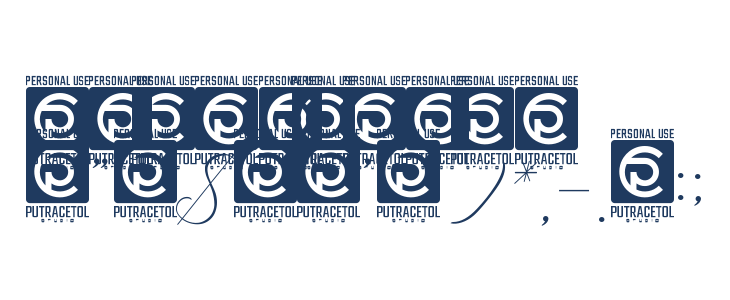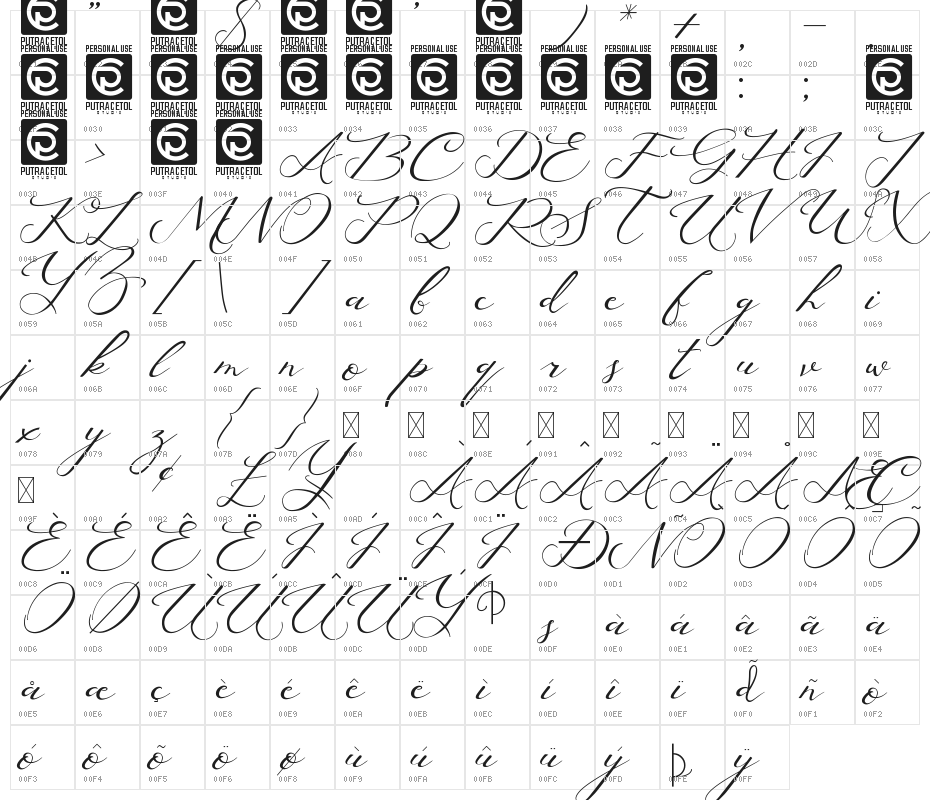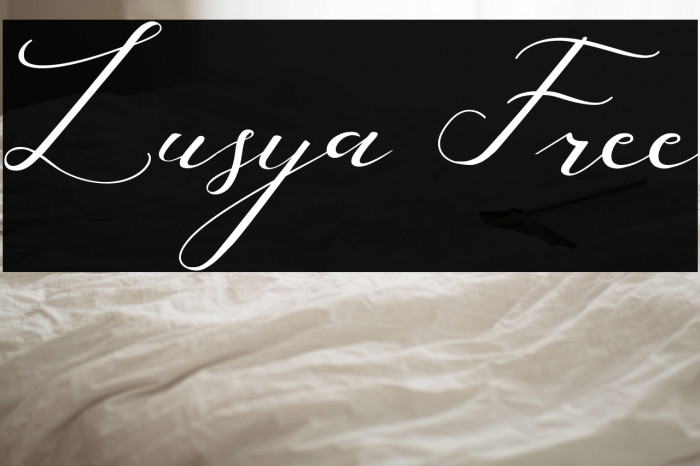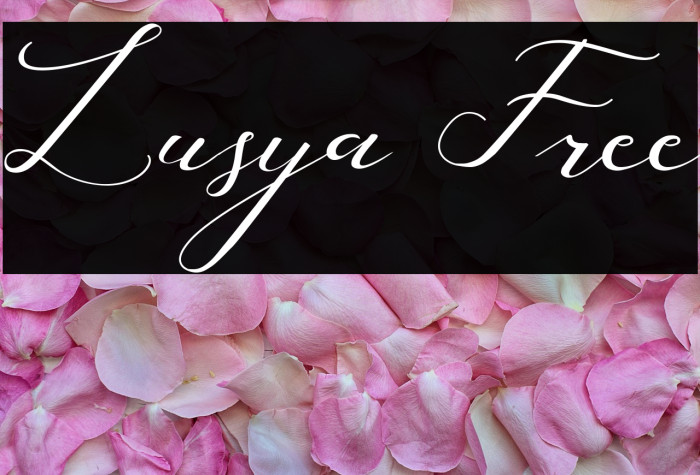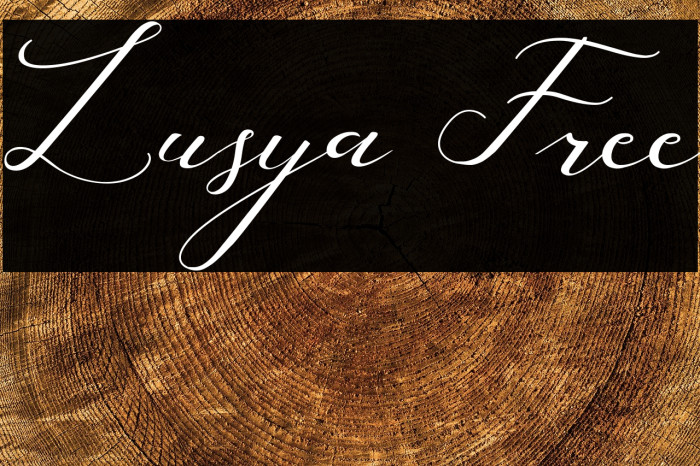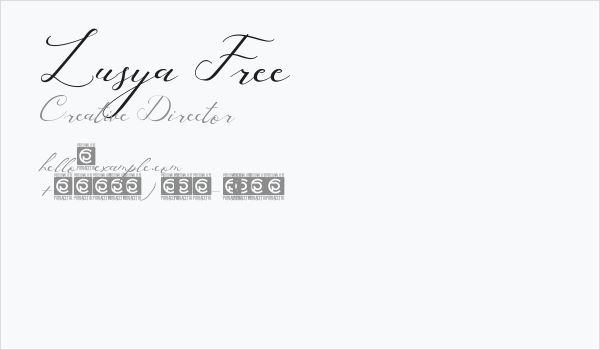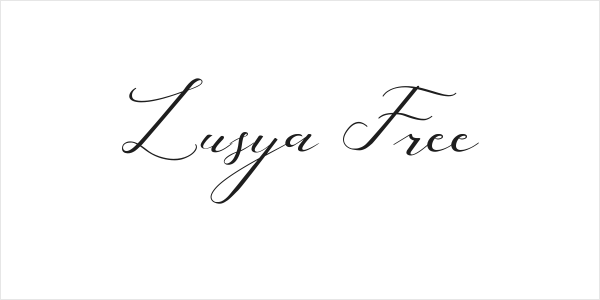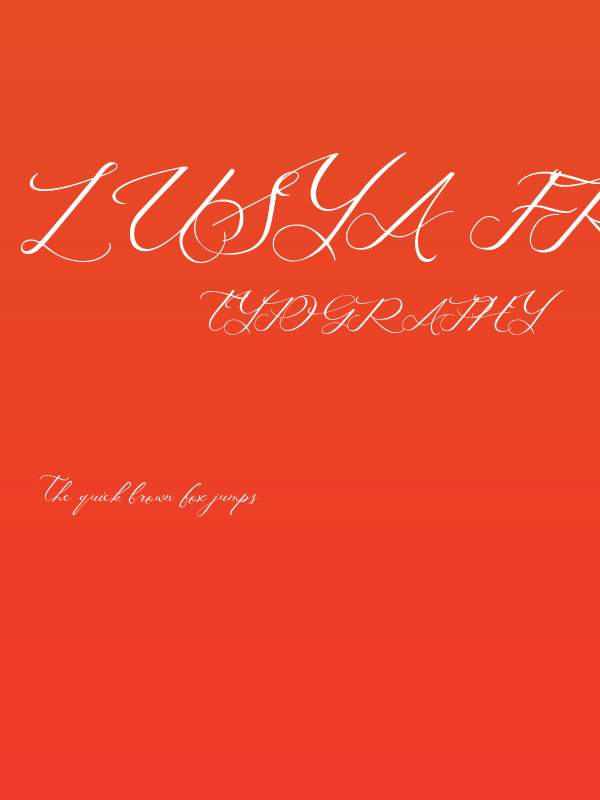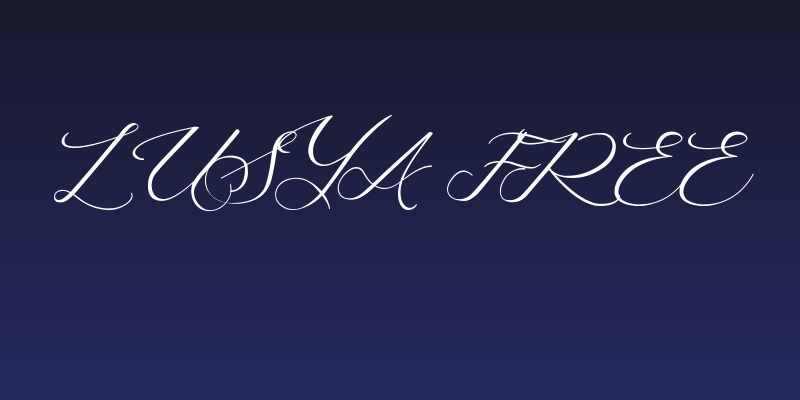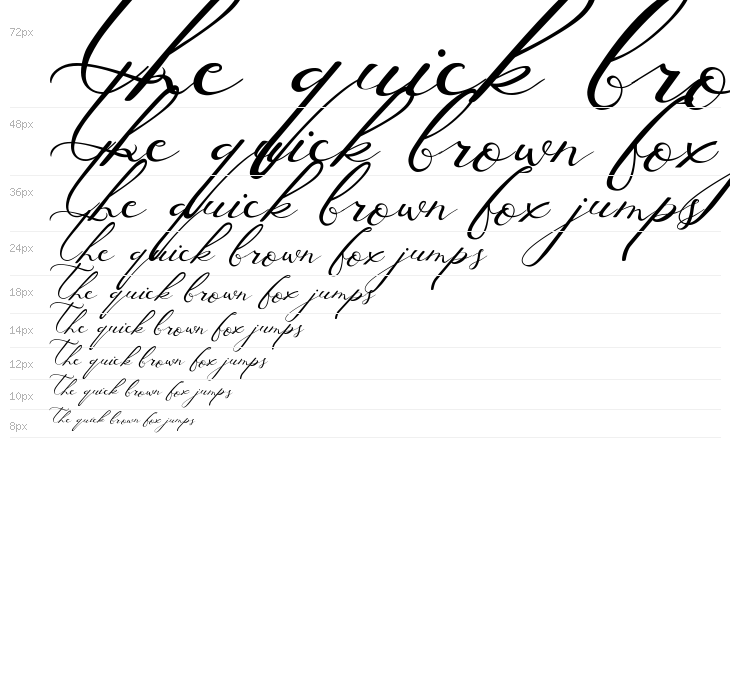
Lusya Free Font
Lusya Free Description
This elegant script font features flowing, interconnected letters with a classic and sophisticated appearance. The uppercase letters are ornate and decorative, while the lowercase letters maintain a fluid and graceful style. The font showcases a high contrast between thick and thin strokes, adding to its refined and luxurious feel. It includes a full set of uppercase and lowercase letters, numbers, and a selection of special characters, making it versatile for various design needs. The overall aesthetic is reminiscent of traditional calligraphy, with a modern twist that makes it suitable for contemporary applications.
| Use Case | Logos, Invitations, Decorative Headlines |
| Proposed Projects | Ideal for wedding invitations, elegant branding, luxury packaging, and decorative headlines. |